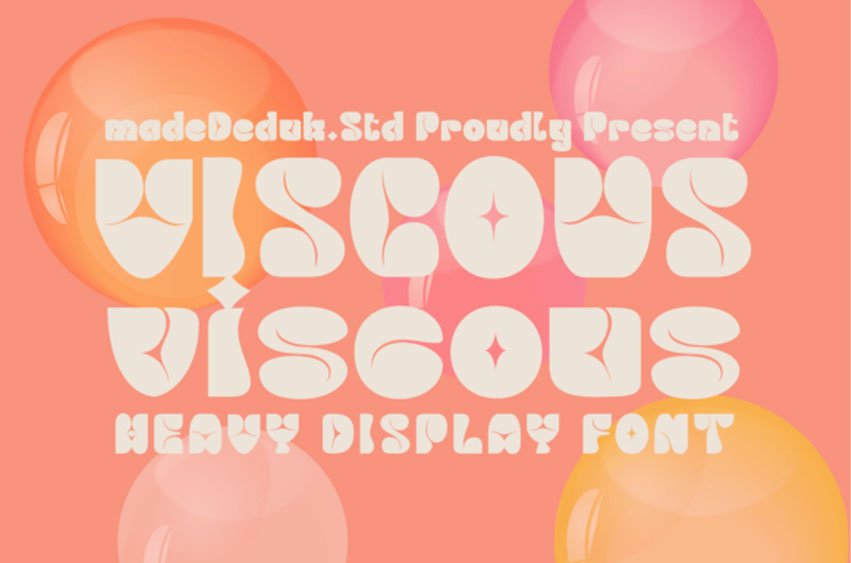
Viscous Font
Viscous Font Get ready to pour some personality into your projects with Viscous, a heavy display font that redefines fluid design.
This typeface is a masterclass in “liquid retro,” featuring ultra-thick, melting letterforms that look as if they were hand-poured onto the canvas. With its distinctive negative space “sparkles” and curvaceous, bulbous silhouettes, Viscous captures a psychedelic yet polished aesthetic that feels both nostalgic and futuristic.
Viscous is built for high-impact visual storytelling. It is the perfect choice for bold poster art, experimental branding, streetwear graphics, and product packaging that needs to “pop”.
The soft, rounded edges provide a friendly, approachable vibe, while the sheer weight of the strokes ensures your message is impossible to ignore.
Whether you’re designing for a music festival or a trendy beverage brand, Viscous brings a thick, glossy energy that flows perfectly across any digital or print medium.